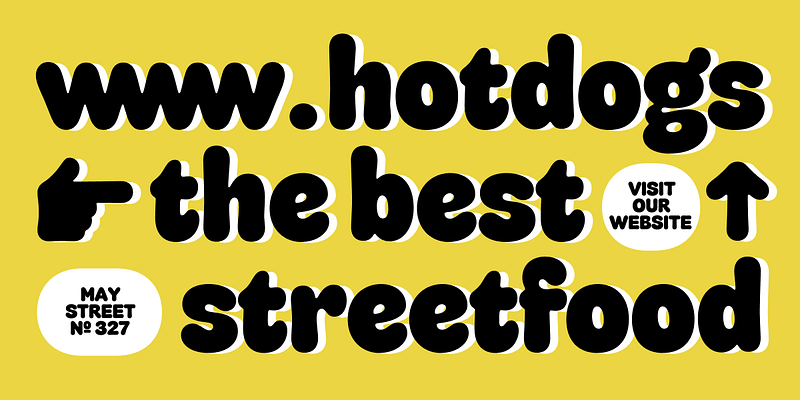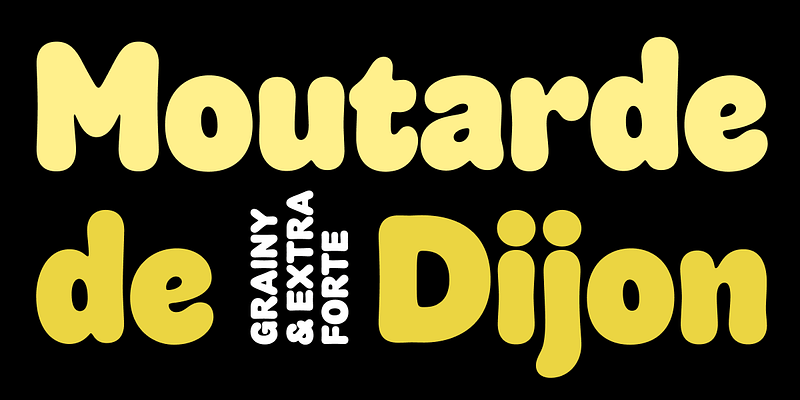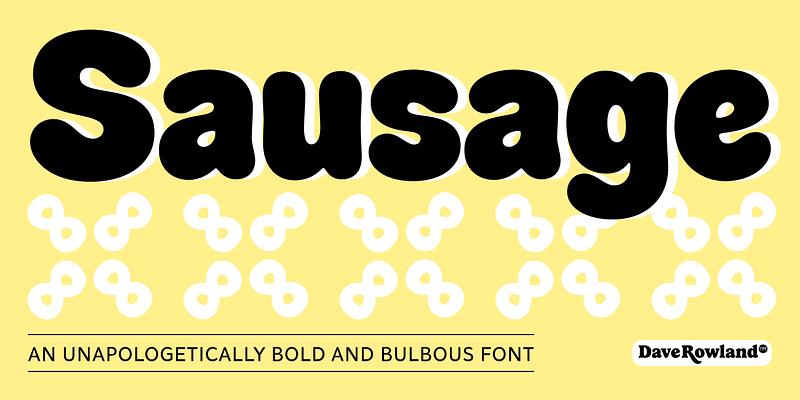
Sausage is unapologetically bold and bulbous. Influenced by magnetic fridge letters, hot dogs, and 70s phototype fonts. There isn’t a single corner in the entire font, and you’d be hard-pushed to find a straight line. This is as soft and friendly as it comes, and it is still equipped with numerous ligatures, alternates, and arrows for sophisticated typography. This seriously playful design is perfect for food and packaging, event branding, media and entertainment, merchandise, and books.
First it was Schizotype, then Eclectotype, now meet Dave Rowland Type, the foundry whose typefaces will breathe new life into your work. With a passion for fonts, Dave uses artistry and craft to transform your words with his captivating array of typefaces. More than just letters, his fonts are distinctly versatile, wildly detailed, and carefully refined. Whether you need a classic serif, modern sans, playful script, or quirky display, Dave Rowland Type embodies emotion, style, and storytelling.